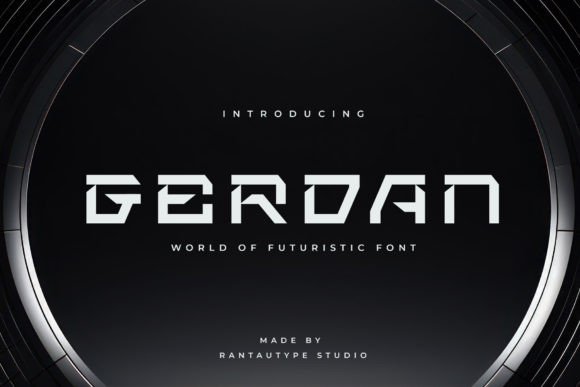
Gerdan Font: A Futuristic Typeface for Modern Designs
In the realm of typography, fonts play a crucial role in conveying the tone and aesthetic of a design. With the ever-evolving landscape of digital and print media, designers are constantly on the lookout for typefaces that can help their creations stand out. One such font that has been making waves in the design community is Gerdan Font. This futuristic font has been gaining popularity for its memorable shape, strong design, and sophisticated appeal, making it a perfect choice for a wide range of creative projects.
What is Gerdan Font?
Gerdan Font is a futuristic typeface designed with a strong visual concept that resonates with the modern technology era. Its unique and memorable shape sets it apart from traditional fonts, making it an excellent choice for designers looking to add a touch of futurism to their work. The font’s design is characterized by its sleek lines, geometric shapes, and a sense of dynamism that immediately captures the viewer’s attention.
Key Features and Benefits of Gerdan Font
- Unique and Memorable Shape: The font’s distinctive design ensures that it leaves a lasting impression on viewers, making it ideal for branding and advertising projects.
- Futuristic Aesthetic: Gerdan Font embodies the spirit of modern technology and innovation, perfect for projects that require a forward-thinking approach.
- Versatility: This font can be used across various platforms and projects, including logos, advertisements, stationery, branding, display and magazine designs, invitations, corporate branding, product design, labels, and business projects.
- Sophisticated Appeal: The font’s sleek and clean design lends an air of sophistication to any project, making it suitable for high-end brands and lifestyle designs.
Ideal Use Cases for Gerdan Font
Gerdan Font’s versatility and futuristic appeal make it an excellent choice for a wide array of design projects. Here are some ideal use cases:
- Logo Design: Create a lasting impression with a unique and memorable logo that stands out in the digital and print landscape.
- Advertising and Marketing Materials: Use Gerdan Font to add a touch of futurism and sophistication to your ads, brochures, and marketing collateral.
- Branding and Corporate Identity: Establish a strong brand presence with a font that communicates innovation and forward thinking.
- Stationery and Packaging: Elevate your brand’s stationery and packaging design with a sleek and modern typeface.
- Digital and Print Media: Gerdan Font is perfect for digital platforms, magazines, and newspapers that require a modern and engaging typography.
Tips for Effective Use of Gerdan Font
To maximize the impact of Gerdan Font, consider the following tips:
- Pair with Complementary Fonts: Combine Gerdan Font with simpler fonts to create visual hierarchy and contrast.
- Experiment with Colors: Take advantage of the font’s versatility by experimenting with different colors that match your brand’s palette.
- Consider Font Sizes: Use varying font sizes to create emphasis and guide the viewer’s attention through your design.
- Maintain Readability: Ensure that your text remains readable, especially when using the font for body text or longer content.
Gerdan Font offers a unique blend of futurism and sophistication, making it an excellent choice for designers looking to create modern and engaging designs. Its versatility, memorable shape, and strong visual appeal ensure that it can be used across a wide range of projects, from branding and advertising to digital and print media. By incorporating Gerdan Font into your design repertoire, you can add a touch of innovation and forward thinking to your creations, setting them apart in today’s competitive design landscape.
Embracing the Future of Typography with Gerdan Font
As we continue to navigate the ever-changing world of design, embracing fonts like Gerdan Font can help push the boundaries of creativity and innovation. Whether you’re a seasoned designer or just starting out, Gerdan Font offers a world of possibilities for creating designs that are not only visually stunning but also convey a sense of futurism and sophistication. So, dive into the world of Gerdan Font and discover how this futuristic typeface can elevate your designs to new heights.